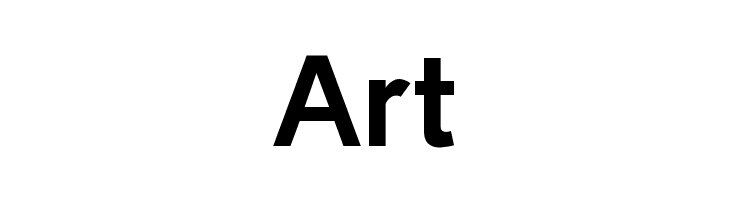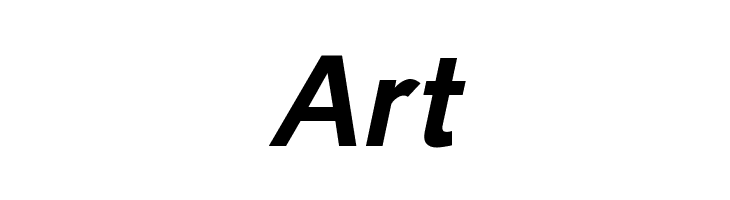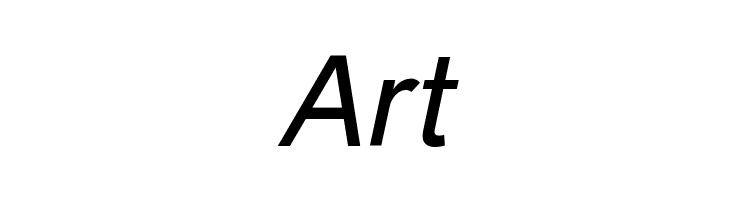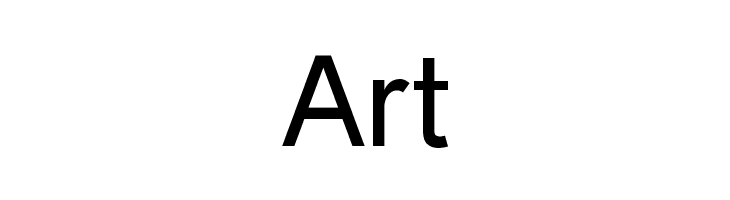
A clean, modern sans-serif font with excellent readability and uniform design.
A bold, modern sans-serif font with clean lines and uniform strokes.
A bold, italicized font with a strong, dynamic appearance.
A modern italic font with smooth curves and a sleek design.